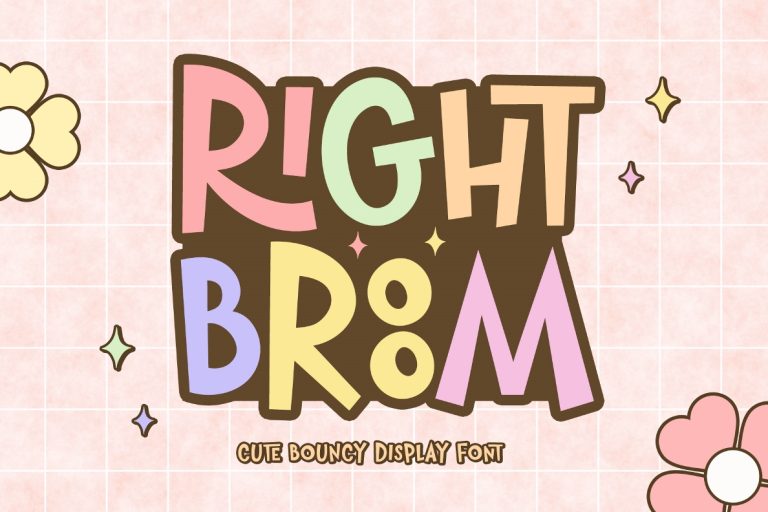
Right Broom
Right Broom is cute and bouncy display font with playful vibes.
Right Broom is pretty font for design with fun and cute touch, such as baby, school design, birthday invitation, summer design, holiday, t-shirt design, crafting, sticker, sublimation, and many more.
Features:
- Uppercase & Lowercase
- Numeral and Punctuation
- Most Multilingual Accent